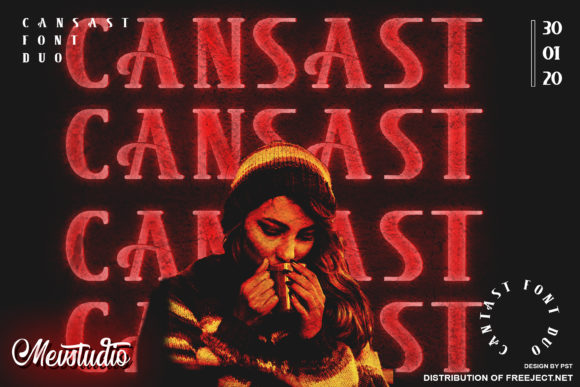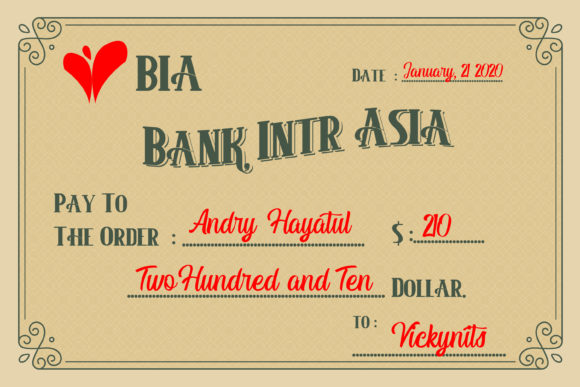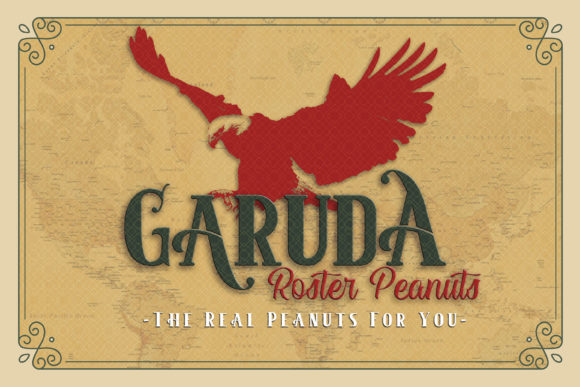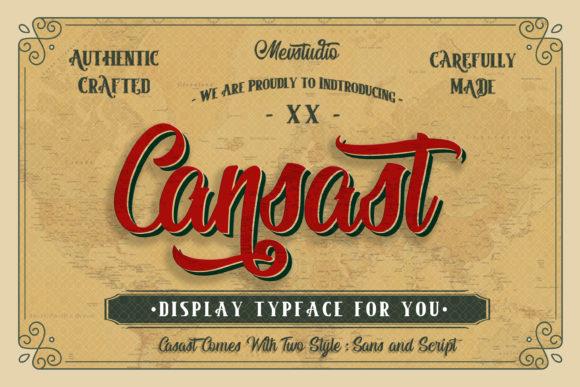
Cansast Font: A Nostalgic Typeface to Elevate Your Design Projects
In the world of typography, fonts play a crucial role in bringing a design to life. With the vast array of fonts available, it can be challenging to find one that stands out from the rest. However, if you’re looking for a typeface that exudes a distinctly nostalgic feel, look no further than the Cansast Font. This unique font is sure to capture your heart and transform your design ideas into true showstoppers.
The Charm of Cansast Font
Cansast Font boasts a one-of-a-kind style that is reminiscent of a bygone era. Its nostalgic feel is perfect for designers and crafters who want to add a touch of vintage charm to their projects. Whether you’re working on a branding campaign, packaging design, or a DIY craft project, Cansast Font is sure to bring a sense of warmth and character to your work.
What Makes Cansast Font Stand Out
So, what sets Cansast Font apart from other typefaces? Here are a few key features that make it a standout:
• Unique Style: Cansast Font has a distinct, hand-crafted feel that is sure to grab attention.
• Nostalgic Charm: Its vintage-inspired design makes it perfect for projects that require a touch of nostalgia.
• Versatility: Cansast Font can be used across a wide range of design projects, from digital designs to print materials.
• Ease of Use: This font is easy to read and works well in various sizes, making it perfect for body text or headings.
Cansast Font is an excellent choice for designers and crafters who want to add a personal touch to their work. Here are a few ways you can use Cansast Font to elevate your projects:
• Branding and Packaging: Use Cansast Font to create eye-catching logos, labels, and packaging designs that stand out from the competition.
• DIY Crafts: Add a touch of nostalgia to your DIY craft projects, such as handmade cards, scrapbooking, and journaling.
• Digital Designs: Use Cansast Font in your digital designs, such as social media graphics, blog posts, and website headers.
Tips for Using Cansast Font
To get the most out of Cansast Font, here are a few tips to keep in mind:
• Experiment with Sizes: Cansast Font works well in various sizes, so don’t be afraid to experiment with different font sizes to find the perfect fit for your project.
• Pair it with Other Fonts: Combine Cansast Font with other fonts to create a unique and visually appealing design.
• Use it for Headings and Titles: Cansast Font is perfect for headings and titles, so use it to add a touch of nostalgia to your design.
In conclusion, Cansast Font is a unique and versatile typeface that is sure to capture your heart. Its distinctly nostalgic feel makes it perfect for a wide range of design projects, from branding and packaging to DIY crafts and digital designs. With its ease of use and flexibility, Cansast Font is an excellent choice for designers and crafters who want to add a personal touch to their work. So why not give Cansast Font a try and see how it can elevate your design projects?